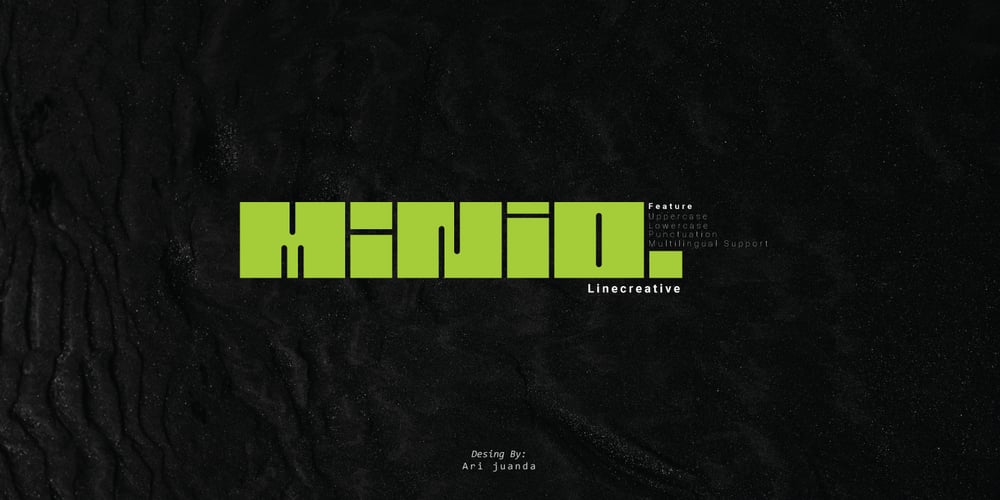
Minio
Minio font
Minio Font Family was designed by Ari Juanda and published by Linecreative. Minio contains 1 styles and family package options. Minio is a cubical mechanic, futuristc display. It’s fun and groovy with a bold personality. Perfect for logo, Brand,title or anything your creativity takes you.- Uppercase and lowercase letters- Punctuation- Numbers- Multilingual (Latin Western Europe)